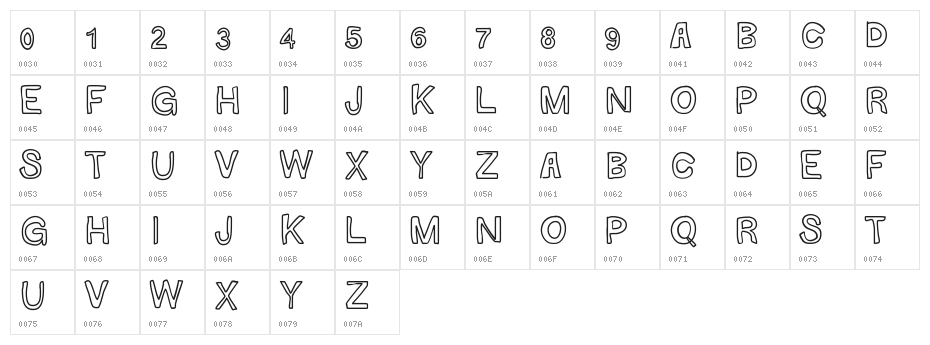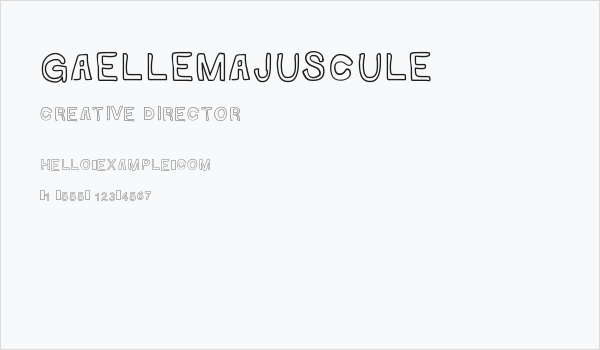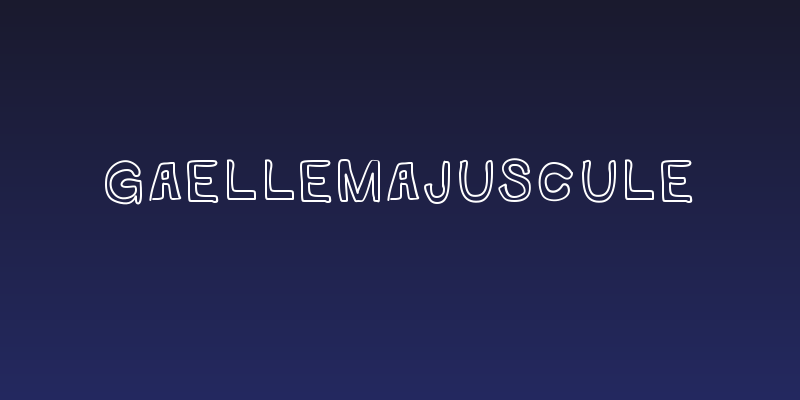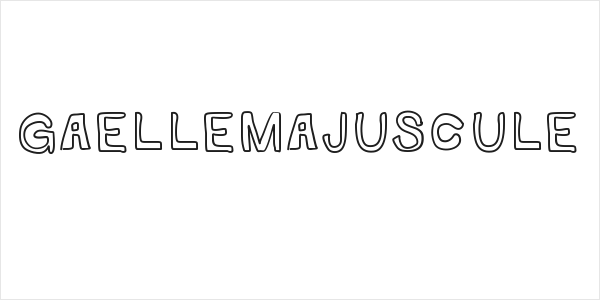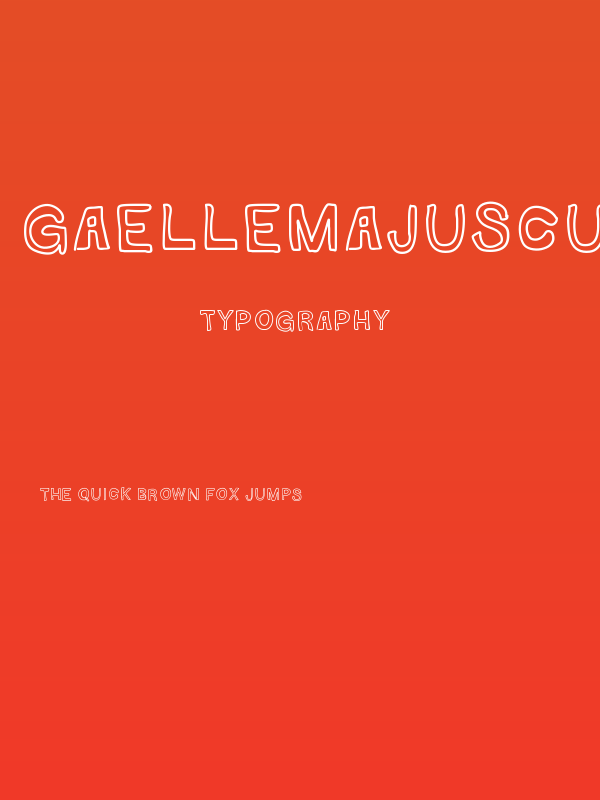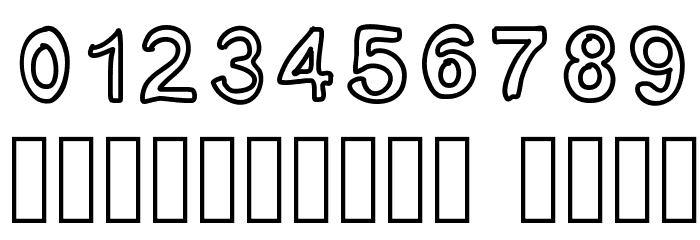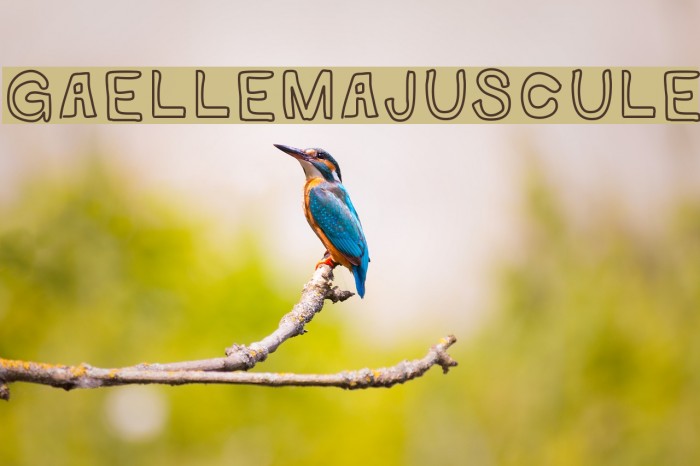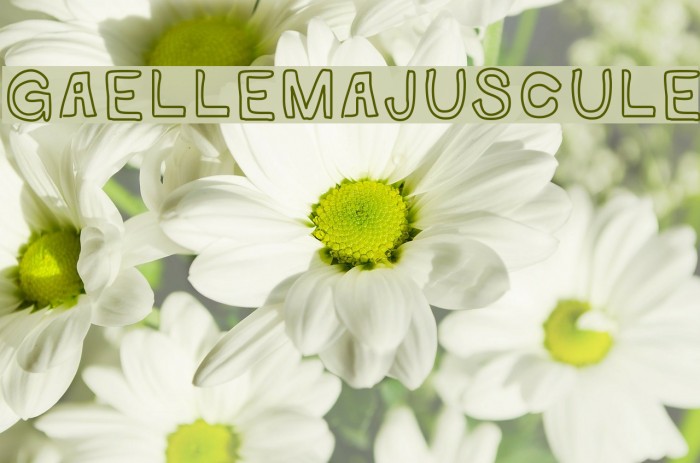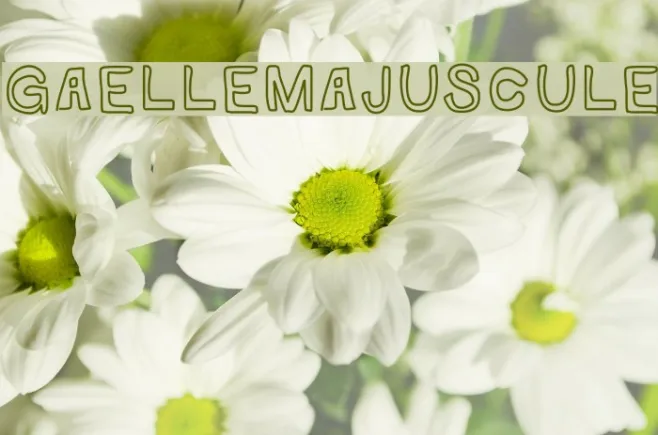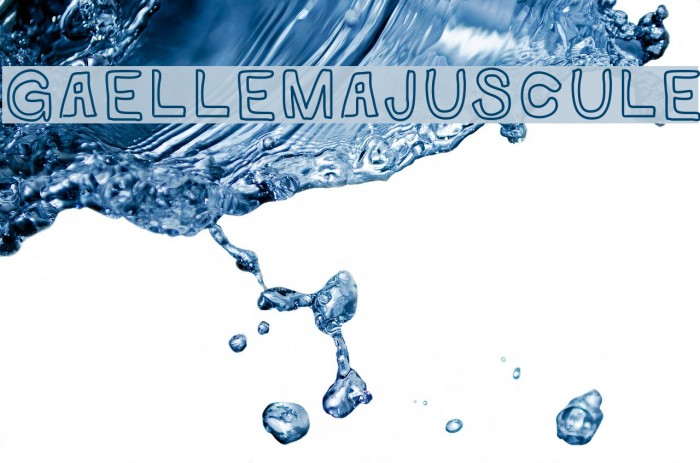
GaelleMAJUSCULE Font
GaelleMAJUSCULE Description
This font features a playful and bold outline style, characterized by its thick, uniform strokes that create a hollow effect. The uppercase letters are designed with a slight whimsical touch, giving them a unique and informal appearance. The numbers and special characters maintain the same bold outline, ensuring consistency across all glyphs. The font's overall look is both modern and fun, making it suitable for creative and casual projects. Its distinct outline style makes it stand out, offering a fresh take on traditional bold fonts.
| Overall Style | Modern, Fun |
| Proposed Projects | Ideal for children's books, playful branding, posters, and creative designs. |